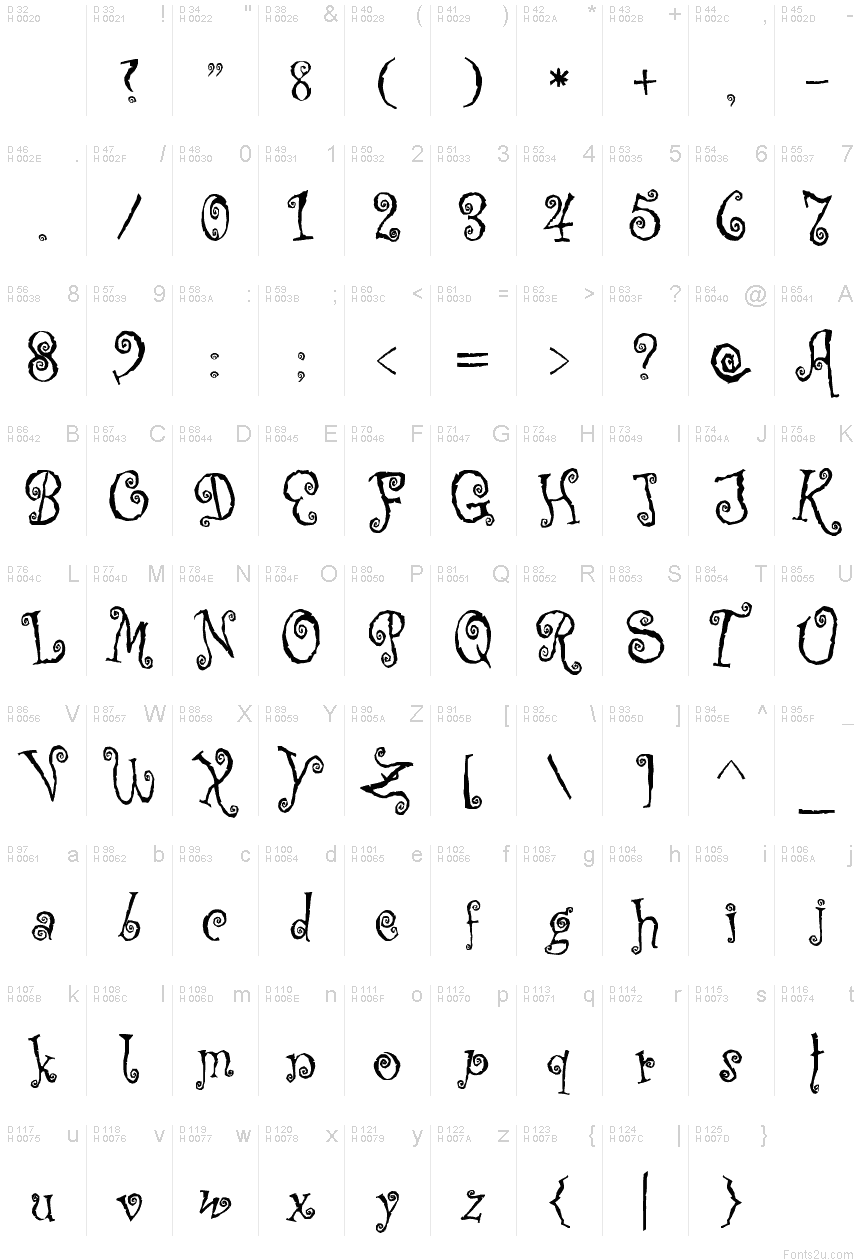
Corps-Script
Corps-Script is a captivating display font that exudes a delightful sense of whimsy and elegance. Crafted by the renowned designer Otto Maurer, this curly, script-inspired typeface boasts a captivating blend of fluid lines and playful embellishments. The intricate, swirling characters evoke a sense of graceful movement, making it an ideal choice for a variety of design applications, from eye-catching headlines to sophisticated branding and packaging.
With its distinctive personality, Corps-Script effortlessly adds a touch of charm and sophistication to any project, seamlessly blending the traditional and the modern.